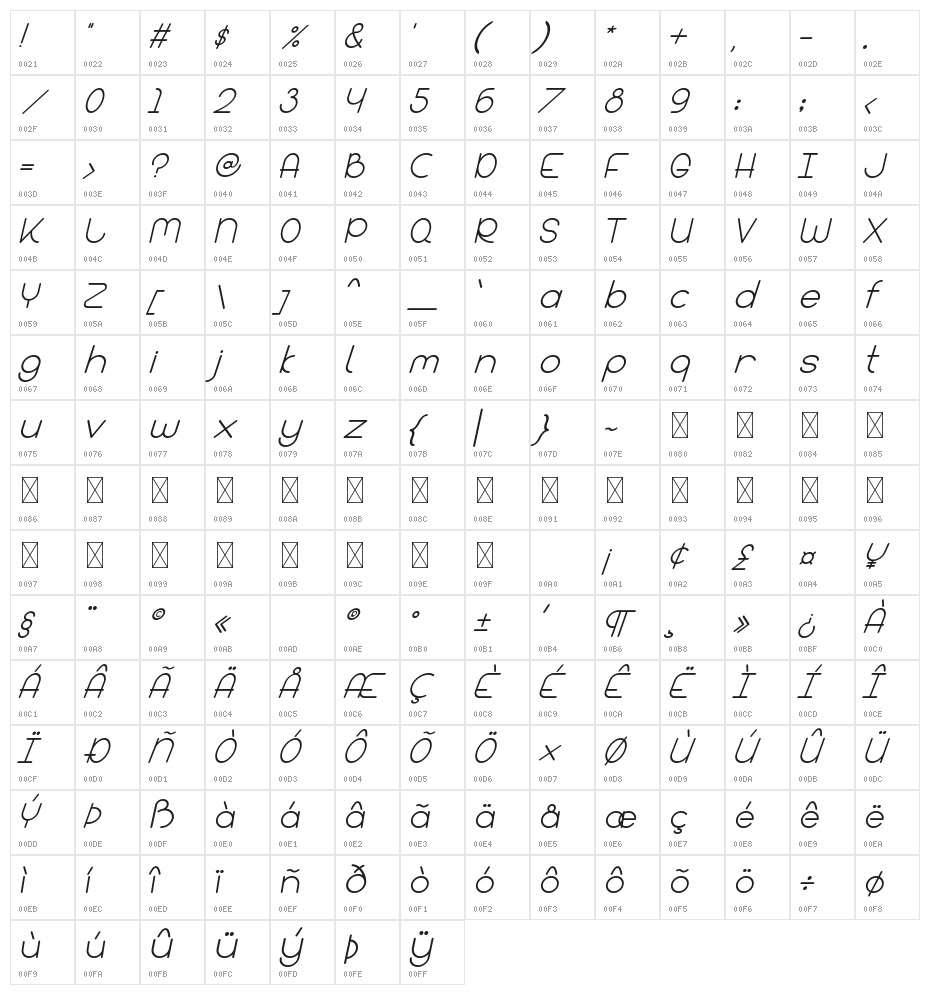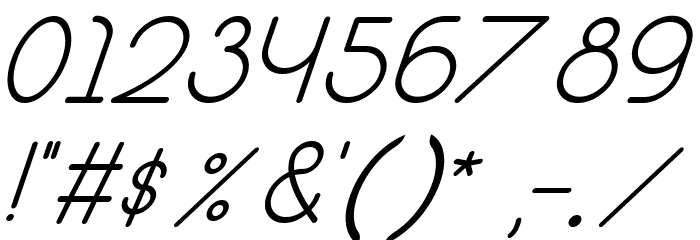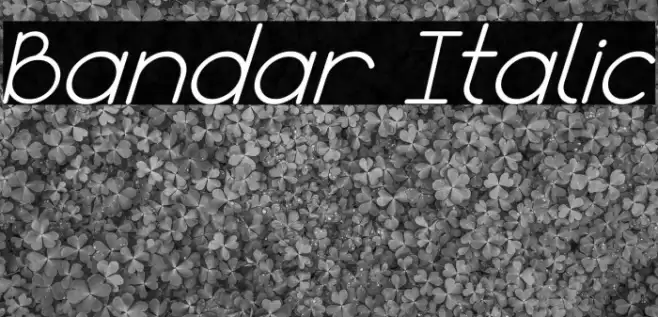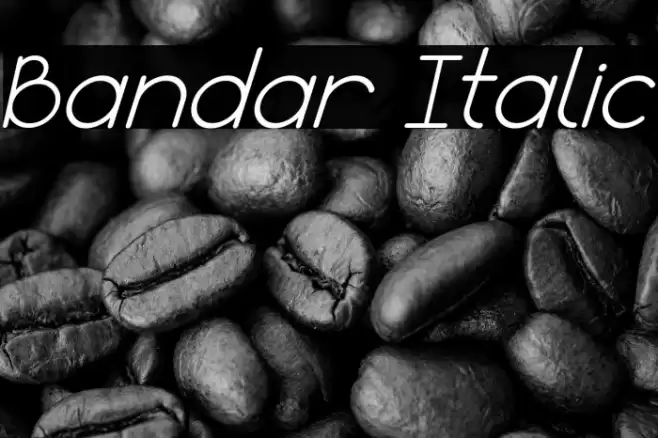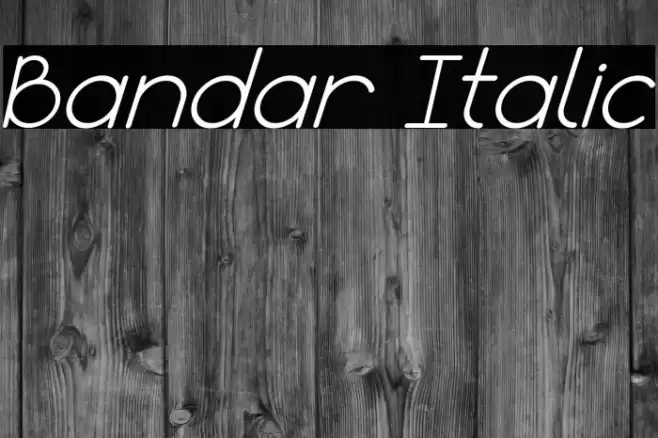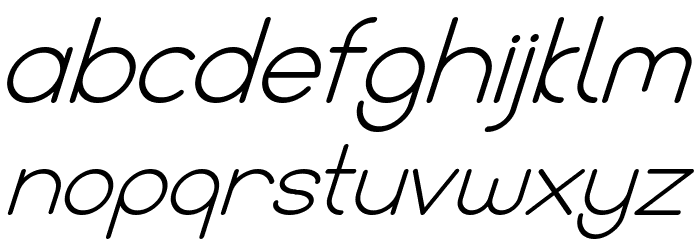
Bandar Italic Font
Bandar Italic Description
This font features a sleek, italicized style with smooth, flowing lines that create a sense of motion and elegance. The characters are slightly slanted, enhancing the dynamic and modern feel. Uppercase and lowercase letters maintain a consistent height, contributing to a harmonious appearance. The numerals are clear and legible, complementing the alphabet with their rounded forms. Special characters are designed with the same fluidity, ensuring a cohesive look across all glyphs. The overall design is minimalist yet expressive, making it suitable for a variety of creative applications.
| Use Case | Headlines, Logos, Branding |
| Proposed Projects | Ideal for branding, fashion magazines, modern websites, and creative posters. |